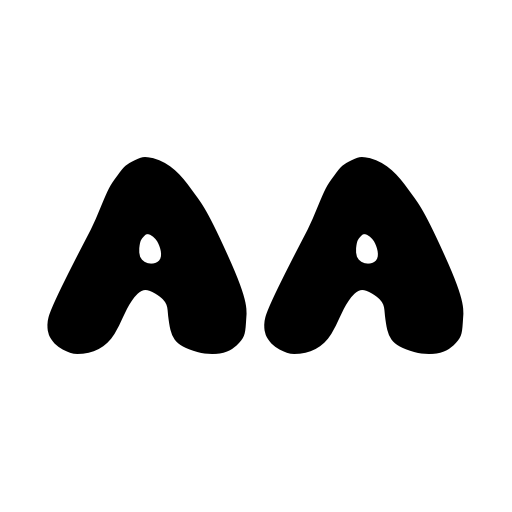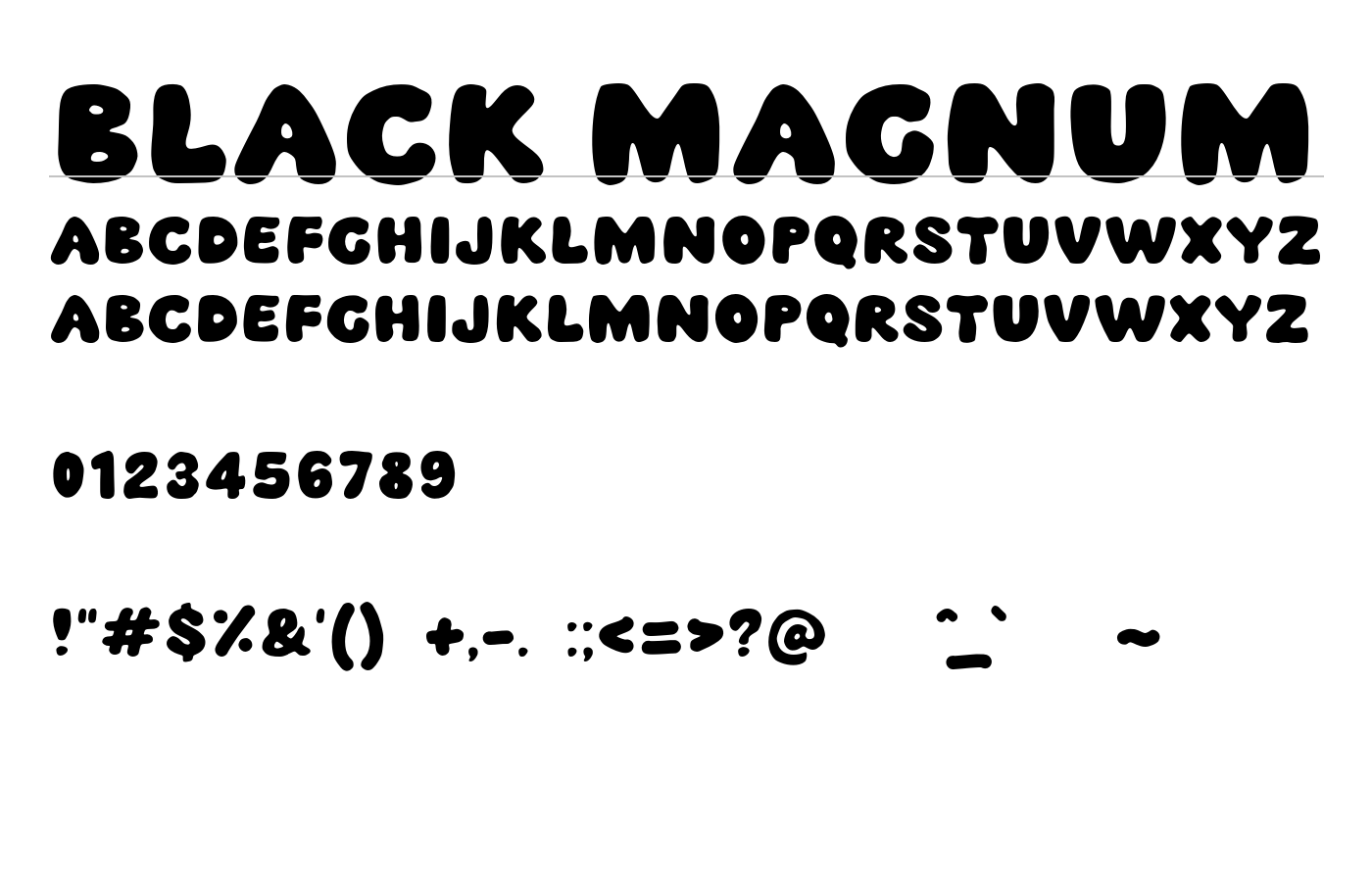
Black Magnum is a bold, playful sans serif font with thick, rounded letterforms that give it a friendly and approachable vibe. Its chunky shapes and uniform weight make it ideal for eye-catching headlines, logos, and designs needing a fun, informal touch. This font works well in creative, casual branding or children's content where a strong, inviting presence is desired.
Black Magnum Font
About Black Magnum Font